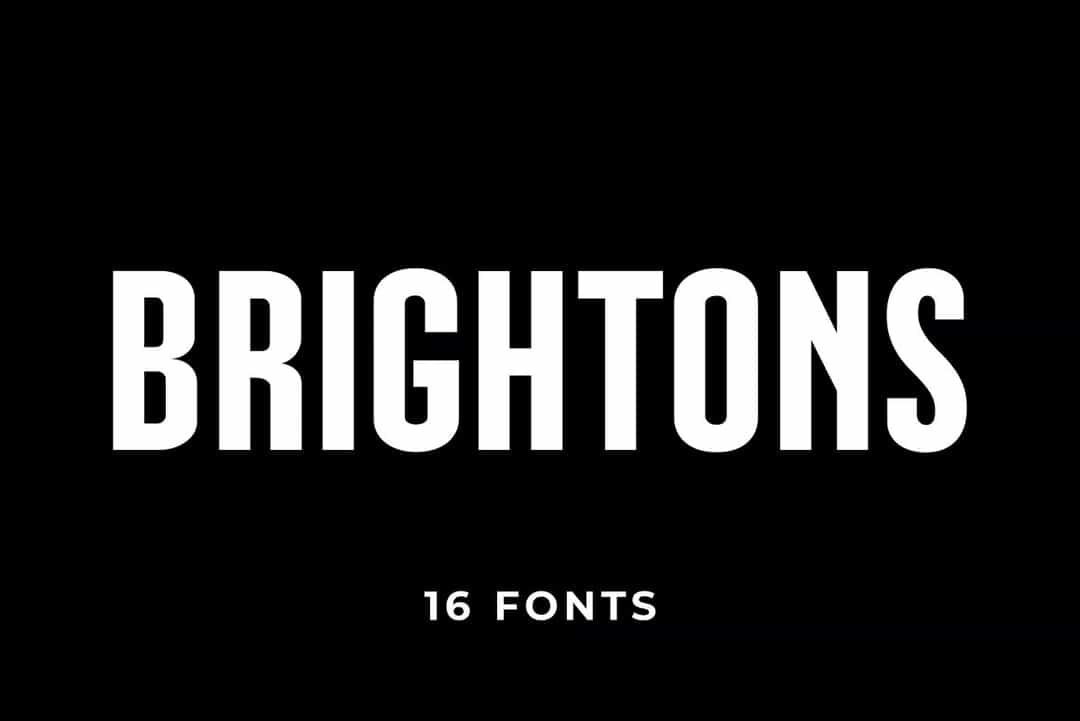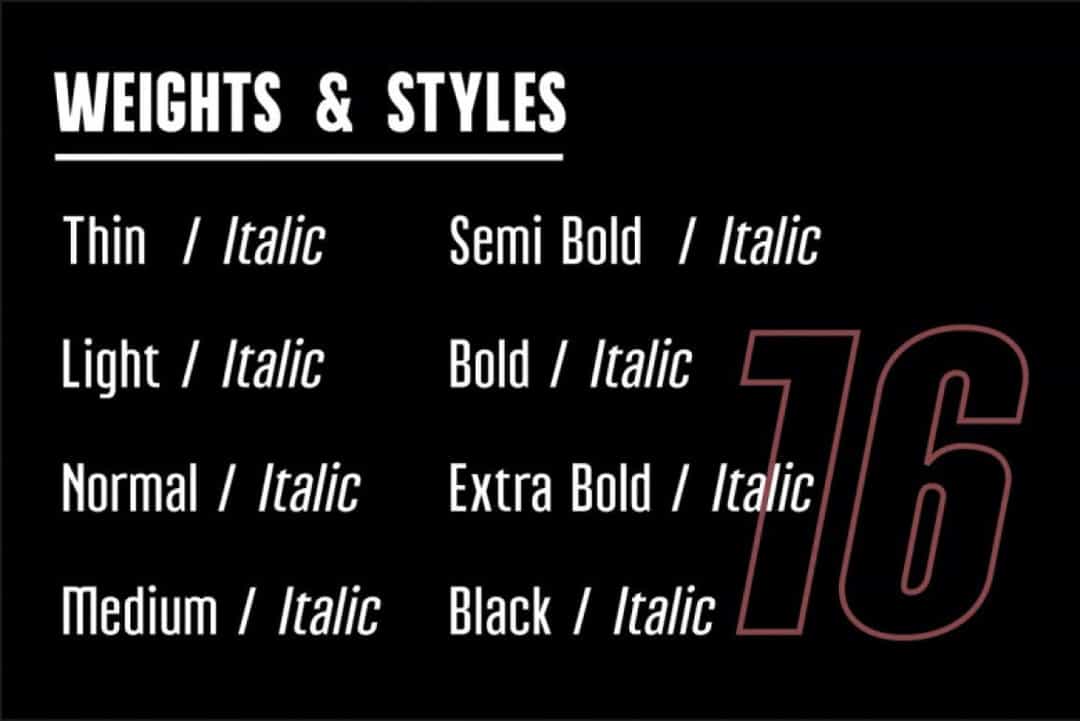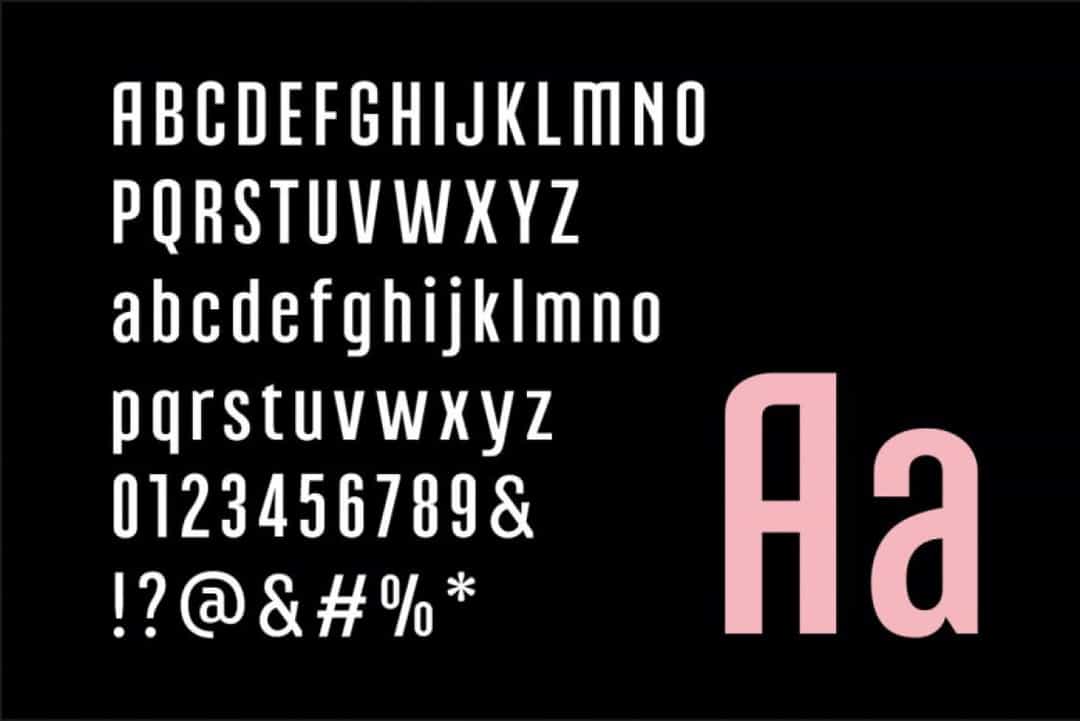
Discover Brightons Font, part of the Sans Serif collection—a versatile and unique font perfect for adding a personal touch to your projects. Download it for free and enjoy crafting designs with style, from invitations to social media posts. This font is available exclusively for personal use, giving you the freedom to create without limits. Unlock your creativity with Brightons Font today!
“BRIGHTONS” Typeface Family will add versatility and style to your designs with its stunning collection of 16 distinct styles designed specifically to meet your design needs. BRIGHTONS stands out with its incredible flexibility and modern style – perfect for banners, posters, ads magazines newspapers web designs.